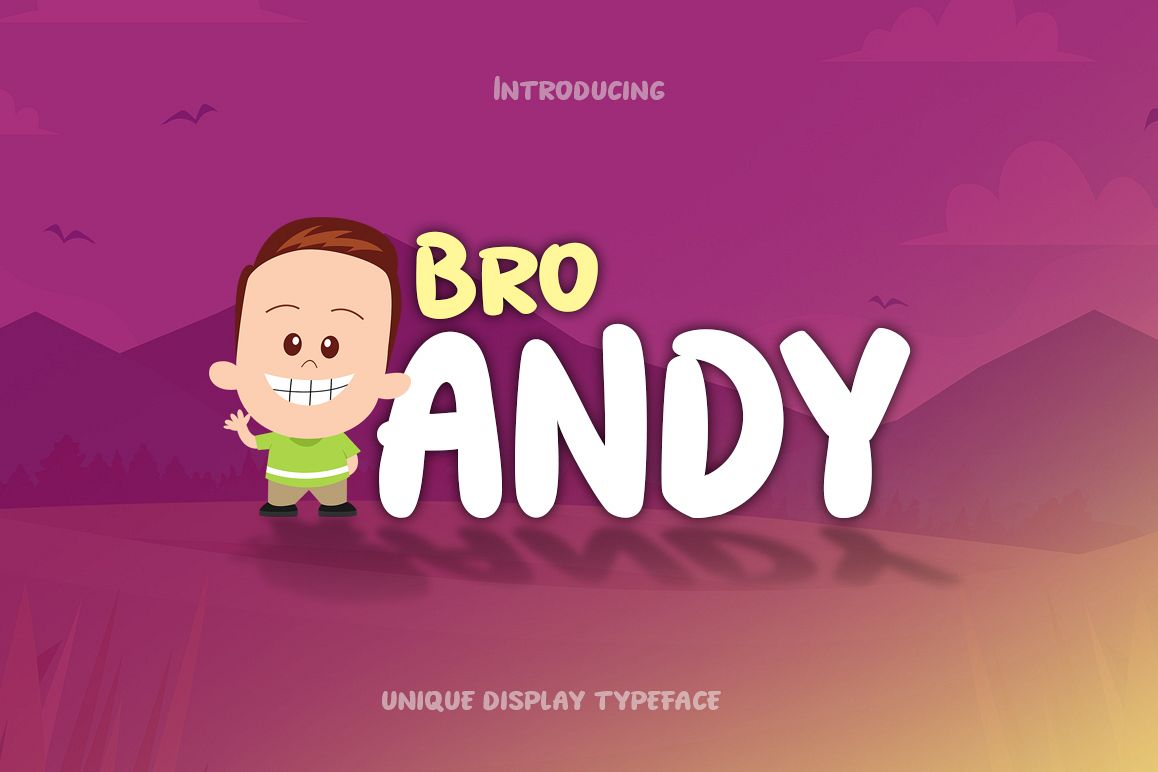
Bro Andy font with children and cheerful theme for your fun project. Bro Andy font suitable for logo, branding, greeting card, poster and any design that you create.